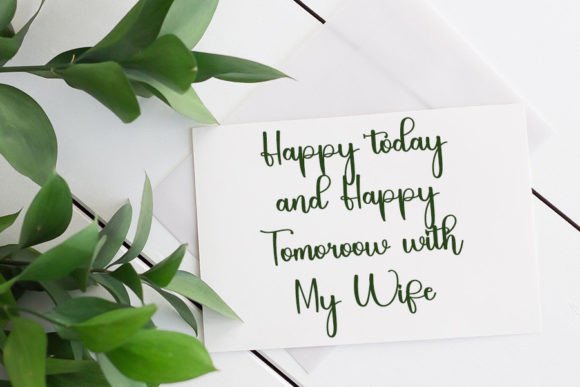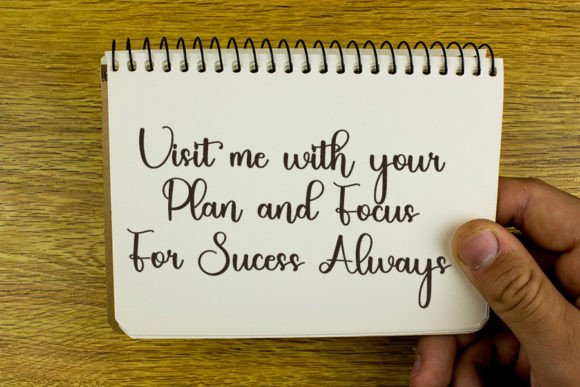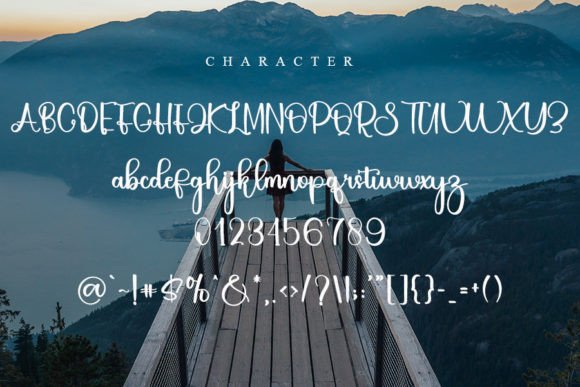
Introduction to Little Holiday Font
As a designer, there’s nothing quite like the thrill of working on a new creative project. The blank canvas, the endless possibilities, the rush of bringing an idea to life. For me, it all started with a single font – the perfect blend of elegance and whimsy that sets the tone for the entire design. And that’s exactly what you’ll find with the Little Holiday Font.
This beautiful, refined handwritten font is a game-changer for designers looking to add a touch of sophistication to their work. Whether you’re creating a logo, branding materials, or a wedding invitation, the Little Holiday Font is sure to impress. Its high-quality design and transparent background make it a valuable resource for any creative project, and with its free download, you can get started right away.
With its PUA encoded glyphs and ligatures, you’ll have access to a world of design possibilities, all with the ease of a single click. So why settle for anything less when you can have the best? Dive into the world of Little Holiday Font and discover a new level of design excellence.
Key Features of Little Holiday Font
- Unique, high-quality font with a transparent background, ideal for creative projects that require a touch of elegance.
- Each character is carefully crafted with attention to detail, resulting in a font that is both visually appealing and highly legible.
- Perfect for use in various design applications, including greeting cards, invitations, and social media graphics.
Honest Review: Little Holiday Font
I recently stumbled upon the Little Holiday Font and was excited to give it a try in my latest creative project. As a designer, I’m always on the lookout for high-quality design resources like free downloads that can elevate my work.
- The Little Holiday Font has a lovely, festive feel to it, making it perfect for holiday-themed projects.
- The style may become repetitive if used extensively throughout a design.
Overall, I’m quite impressed with the Little Holiday Font. It’s a great design resource for personal projects or those on a tight budget. While it has some limitations, it’s a high-quality font that can add a touch of holiday cheer to any creative project.
Tips for Getting the Most Out of Little Holiday Font
Use the Little Holiday Font in conjunction with other design resources to create a cohesive and visually appealing design. Experiment with different font sizes, styles, and colors to find the perfect combination for your project.
Common Use Cases for Little Holiday Font
The Little Holiday Font is perfect for creating festive and seasonal designs, such as holiday cards, gift tags, and party invitations. It’s also great for creating unique and creative titles and headings for your project, such as a wedding invitation or a holiday-themed brochure.